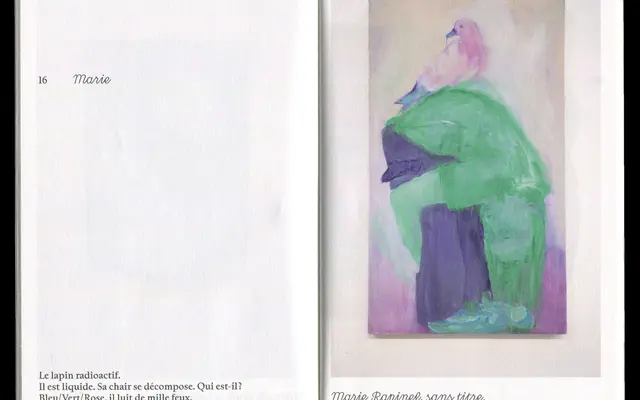
Kernevel
Formagari · Lucas Le Bihan · 2022
A reinterpretation of Goudy's University of California Old Style by Lucas Le Bihan, shaped by Breton summers and sailing culture into a classic text serif with a relaxed horizon.
Drawing on Frederic William Goudy's University of California Old Style, Kernevel balances traditional old-style proportions with a lightness the designer attributes to memories of coastal Brittany. Eight styles run across four weights from Book to Black, each with matching italics, and the family includes small caps, lining and tabular figures, and a generous extended Latin character set of 945 glyphs. Its classical structure makes it well suited to editorial, cultural and literary contexts.
Kernevel is described as an interpretation of Frederic William Goudy's University of California Old Style, placing it firmly in the old-style serif tradition with classic proportions and humanist roots.